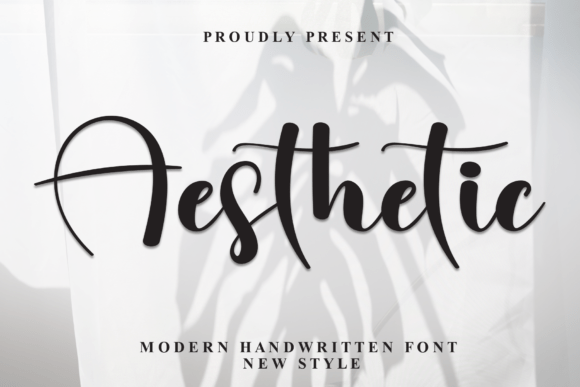
As a designer, there’s nothing quite like the thrill of finding the perfect font to bring your vision to life. You’ve spent hours poring over font libraries, scrolling through social media, and browsing design inspiration boards – and then, suddenly, it hits you: the perfect script font that perfectly captures the essence of your project. For me, that font is the Aesthetic Font – a stylish handwritten script that exudes elegance and charm.
With its fluid strokes and natural flow, the Aesthetic Font creates a captivating, sophisticated look that’s perfect for adding a personal touch to invitations, branding, or social media. Whether you’re a seasoned designer or just starting out, this font is a valuable addition to your toolkit – and its versatility makes it a must-have for any creative project. Whether you’re looking to evoke warmth, creativity, or a sense of sophistication, the Aesthetic Font is the perfect choice.
Aesthetic Font Key Features
- Unique Characteristics: The Aesthetic Font features a unique blend of modern and classic design elements, with clean lines, elegant curves, and subtle nuances that add depth and visual interest.
Aesthetic Font Review
I was really excited to try out the Aesthetic Font, and for the most part, it delivered ✨. The font is sleek and modern, with a clean design that’s perfect for digital products, branding, and even print materials. The font is highly customizable, allowing you to adjust the spacing, line height, and even add custom ligatures. This level of flexibility is a major plus in my book ✨.
One of the standout features of the Aesthetic Font is its versatility. It works well in a variety of contexts, from body text to headings, and even as a display font ✨. The font is also highly legible, making it perfect for long blocks of text. Overall, I’m really impressed with the Aesthetic Font’s performance.
Limits and Areas for Improvement
- ⚠️ Limited language support: Unfortunately, the Aesthetic Font only supports a limited number of languages, which may be a issue for designers working on international projects.
- ⚠️ Limited font size options: While the font is highly customizable, the font size options are limited, which may not be ideal for designers working on projects that require a wide range of font sizes.
Overall, I’d give the Aesthetic Font a solid 4 out of 5 stars. While it has some limitations, its sleek design, high customizability, and versatility make it a great choice for designers looking for a modern, high-quality font.